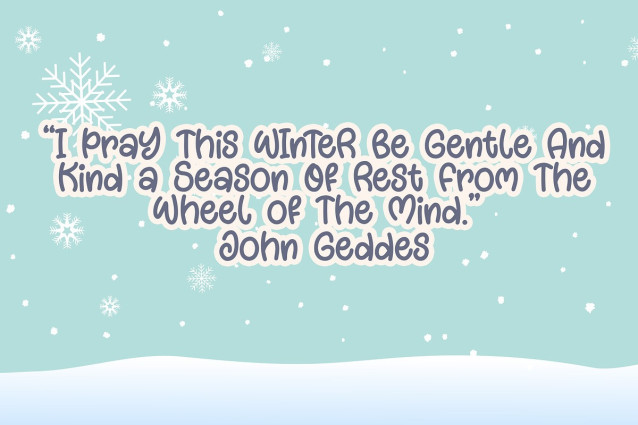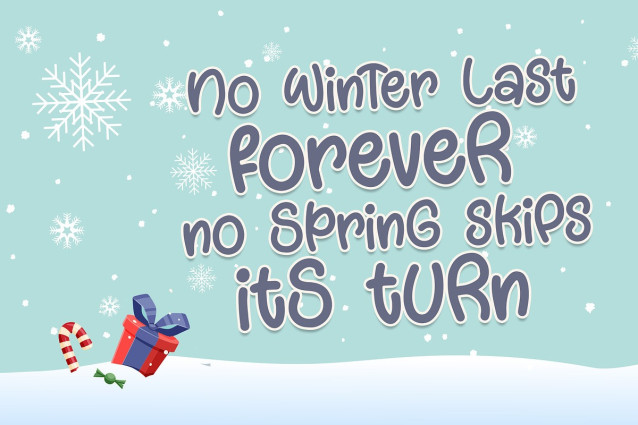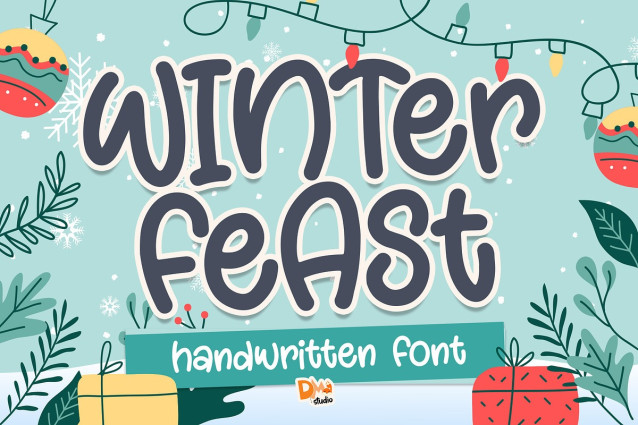
Winter Feast Font
Winter Feast Font is a festive and versatile typeface that brings the warmth and joy of the winter season to your designs. Perfect for holiday cards, invitations, and seasonal branding, this font combines elegance with a touch of whimsy, capturing the spirit of winter celebrations.